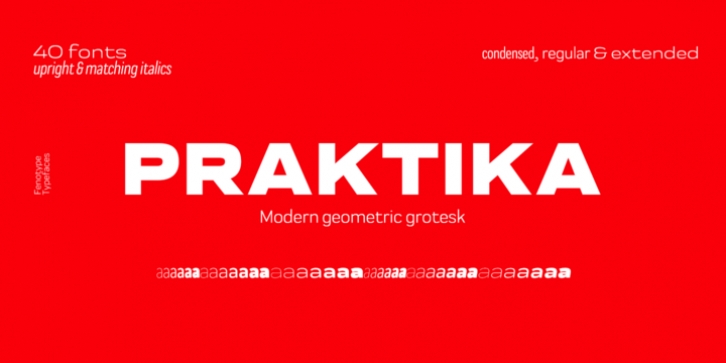
Praktika
Modern grotesk super family
Praktika comes with more than a few features, accessible in any open type savvy program.
• Built-in small capitals
• Both lining and old style numerals, in tabular or proportional form
• Superscript and subscript numerals
• Many alternate characters